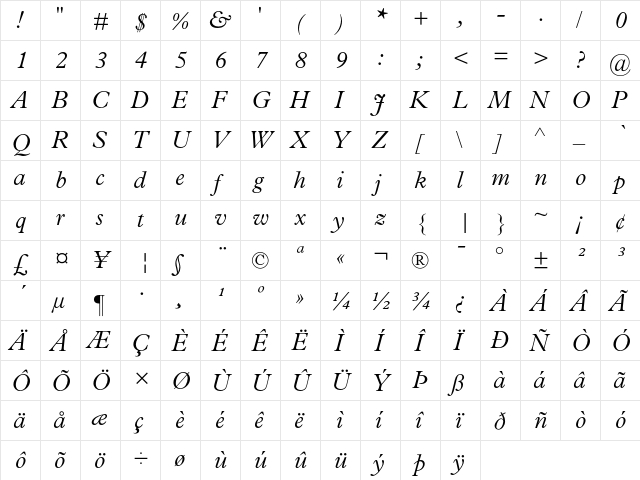
Plantin Light Italic
Design Context for Plantin Typeface
Plantin offers clean, dependable letterforms without strong stylistic allegiance, making it a practical choice for designers who need flexibility. The slanted form adds forward momentum and visual energy. The delicate stroke weight brings airiness and refinement to layouts.
Pro Tip: Use Plantin for emphasis, pull quotes, and subheadings where its slanted energy can add rhythm to the layout.